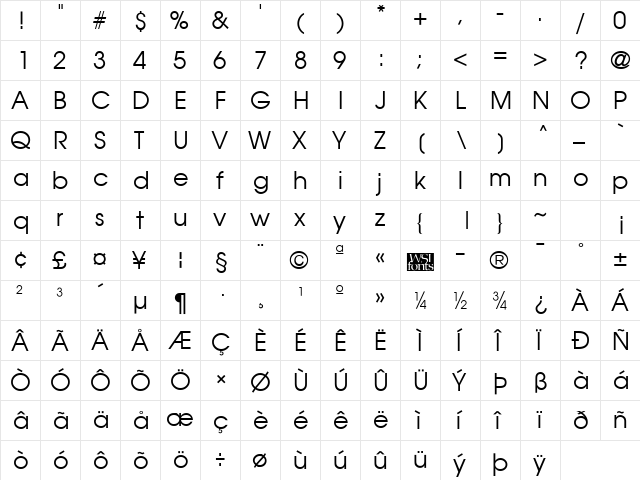
Avian Regular
Design Context for Avian Typeface
Avian takes a measured approach to typography — its balanced proportions and neutral character make it a reliable workhorse for both digital and print work.